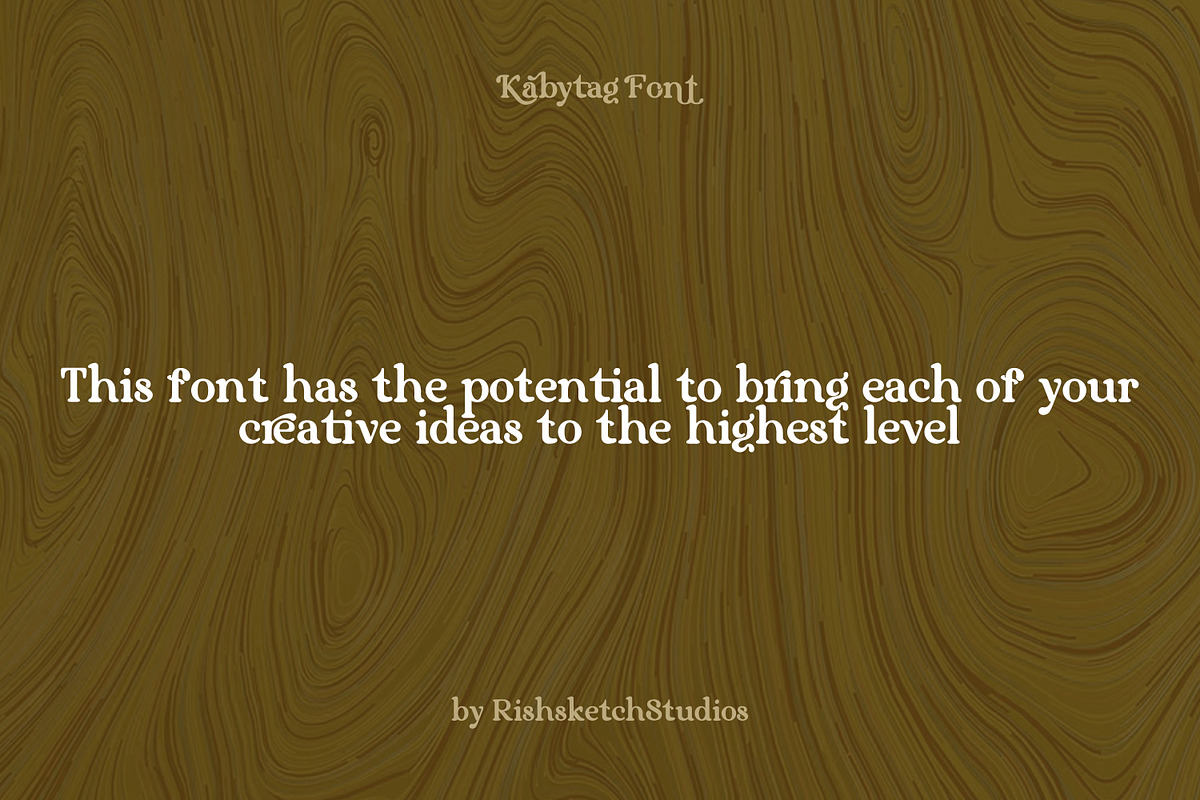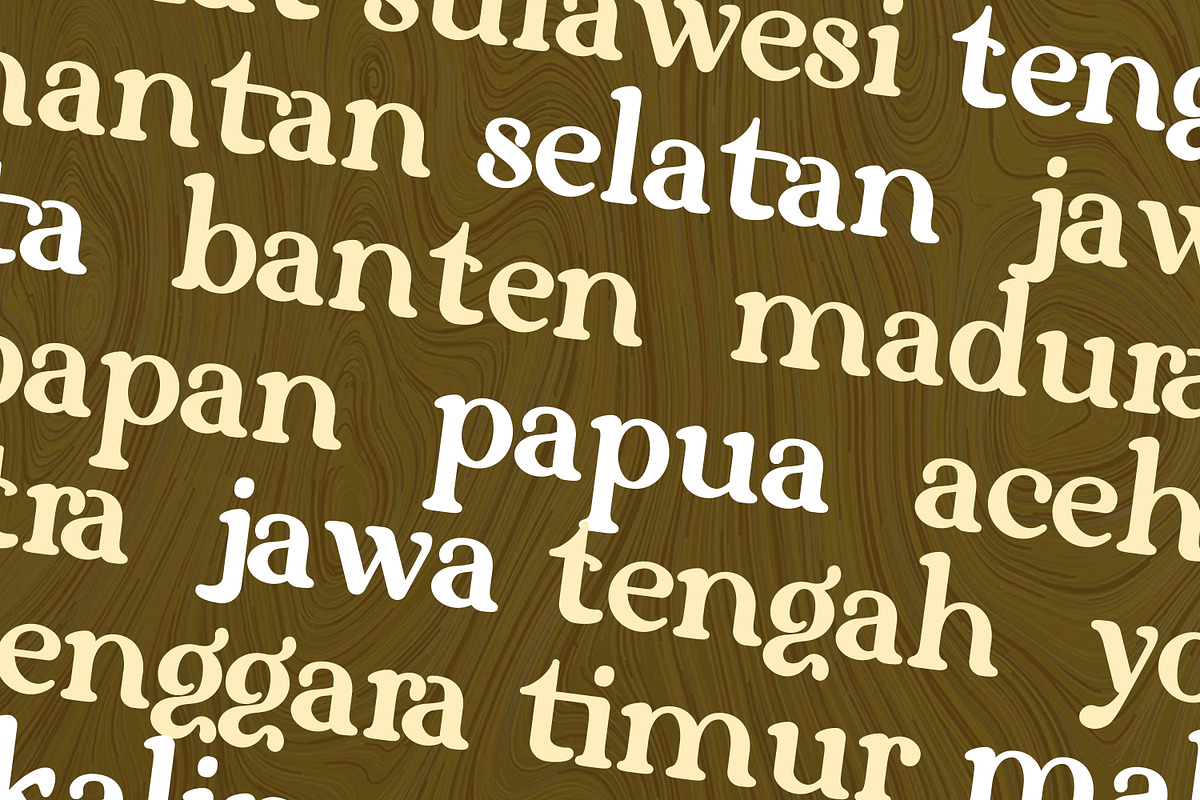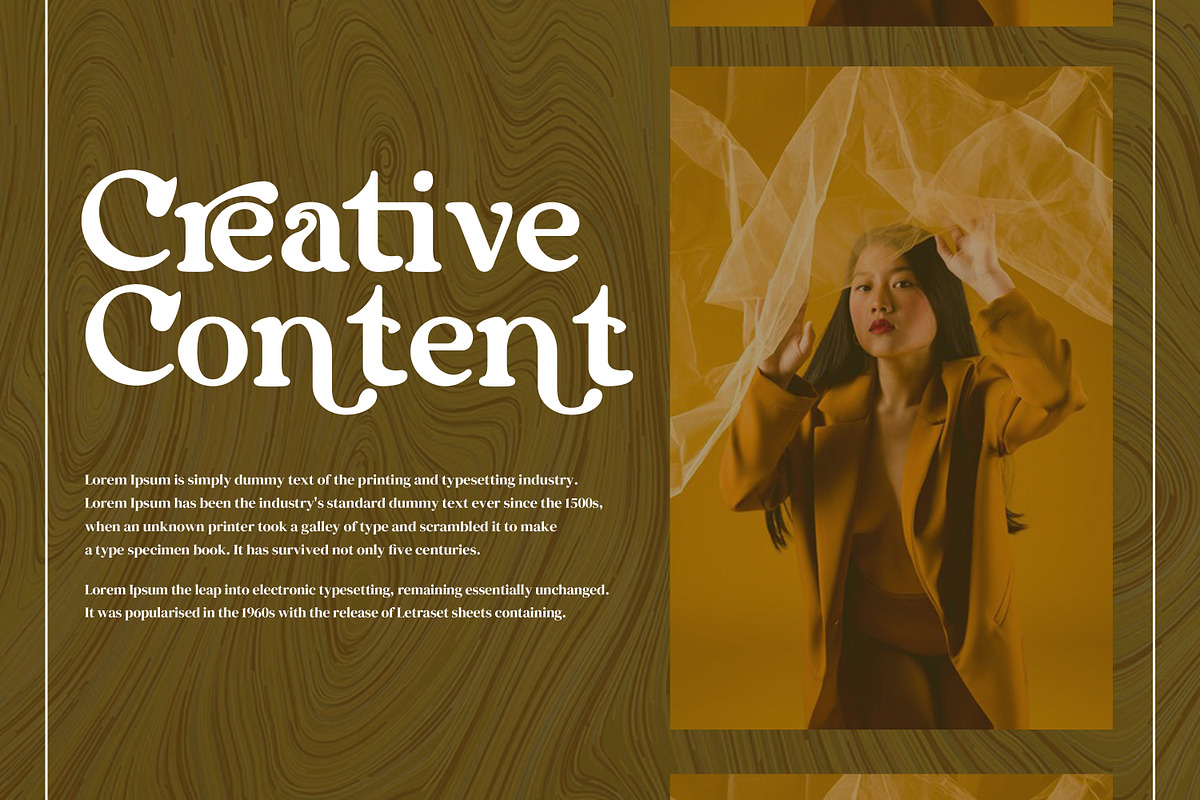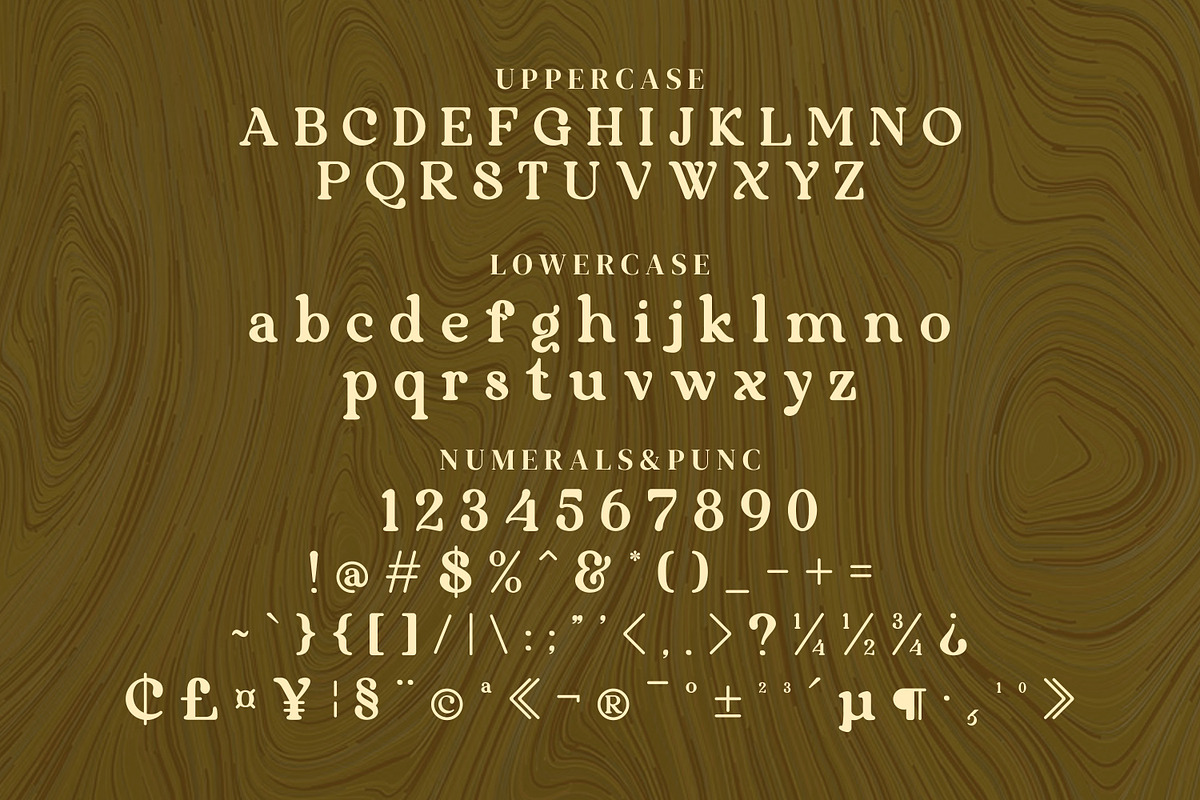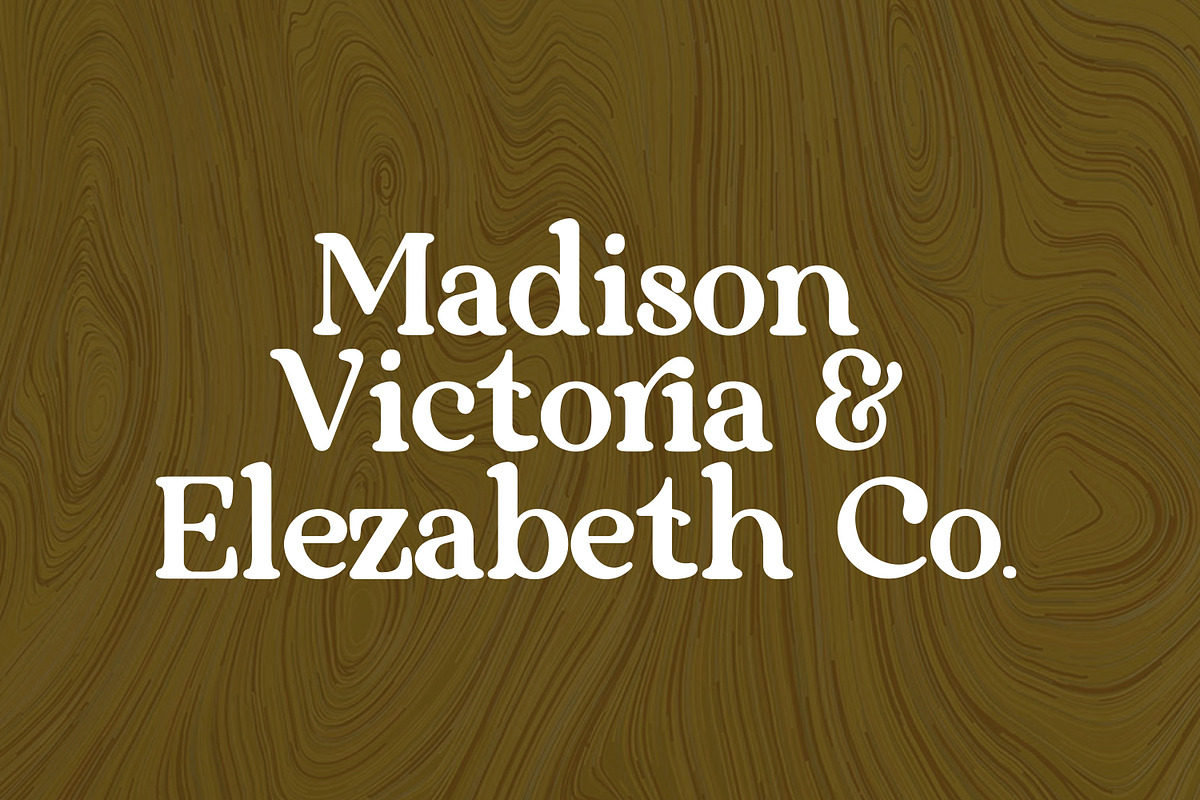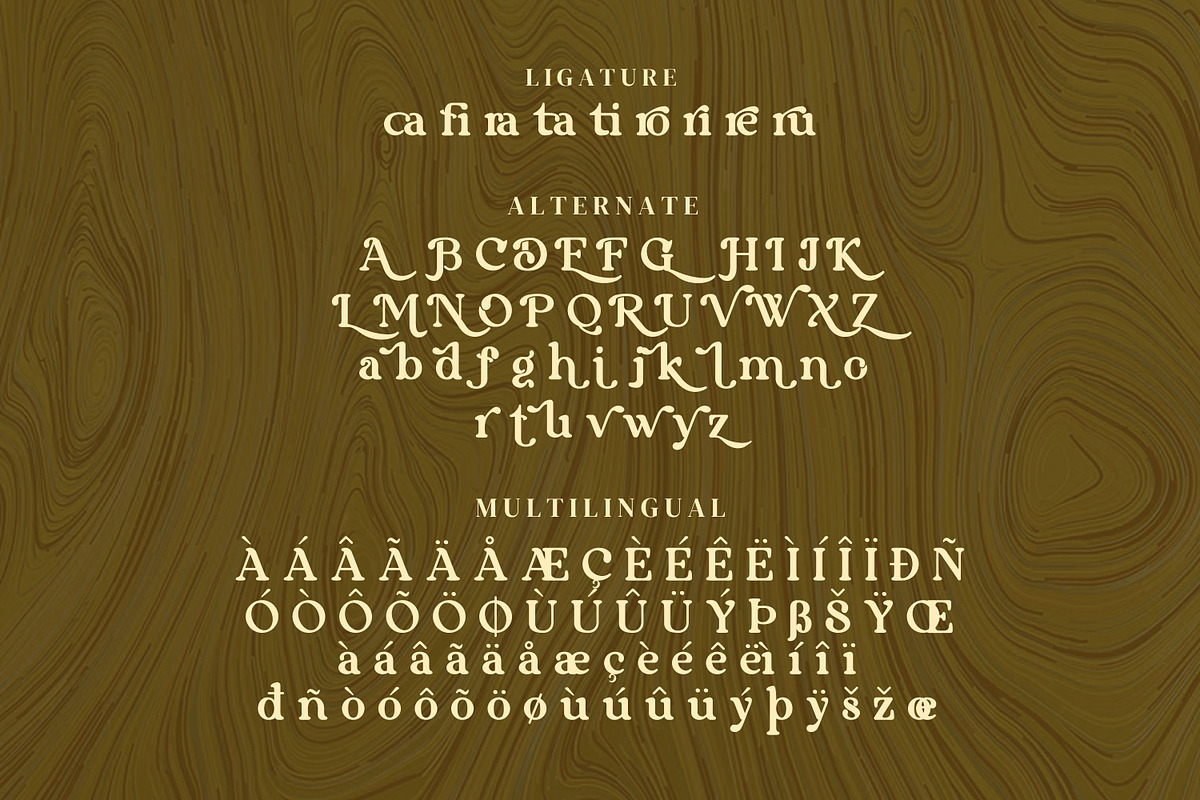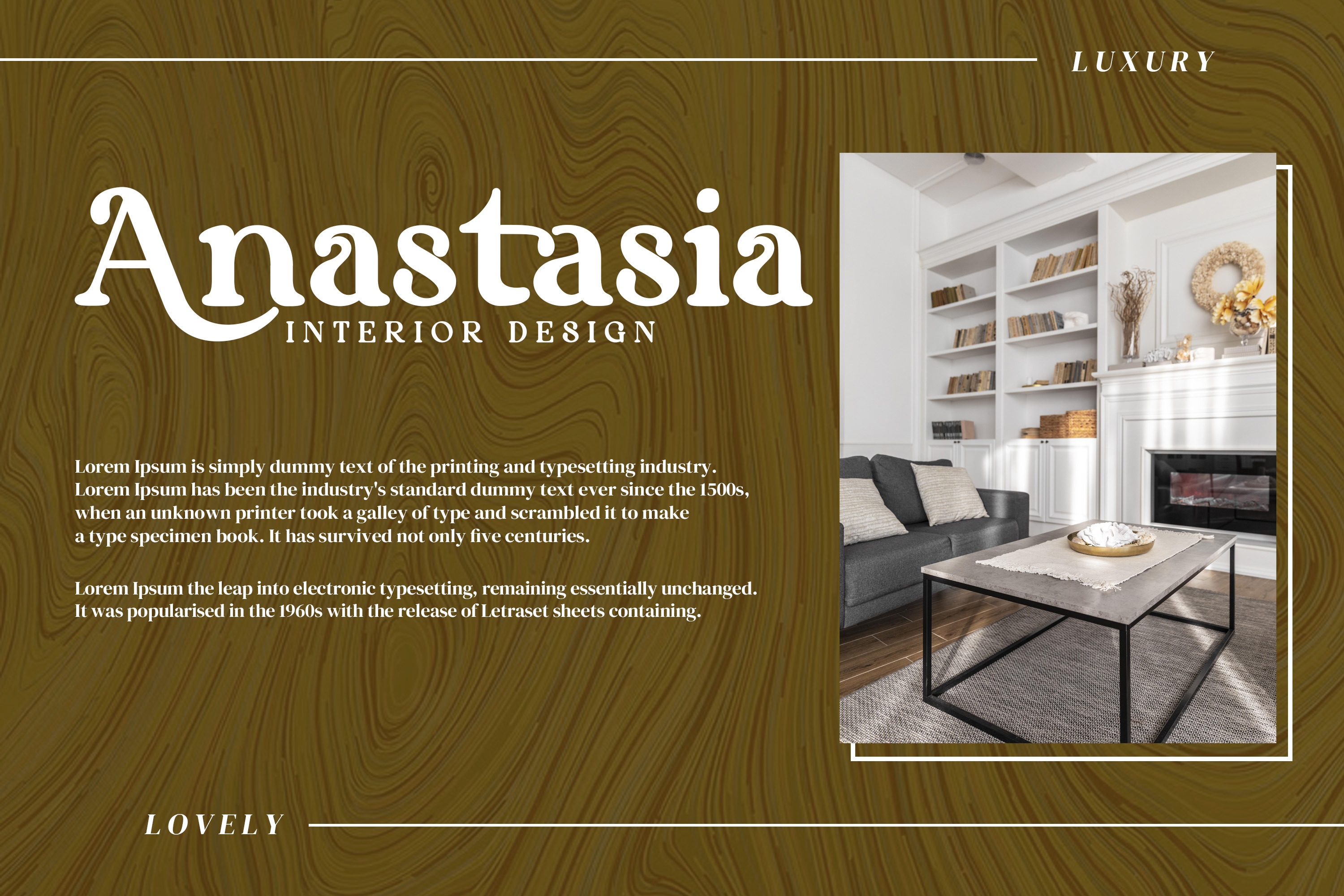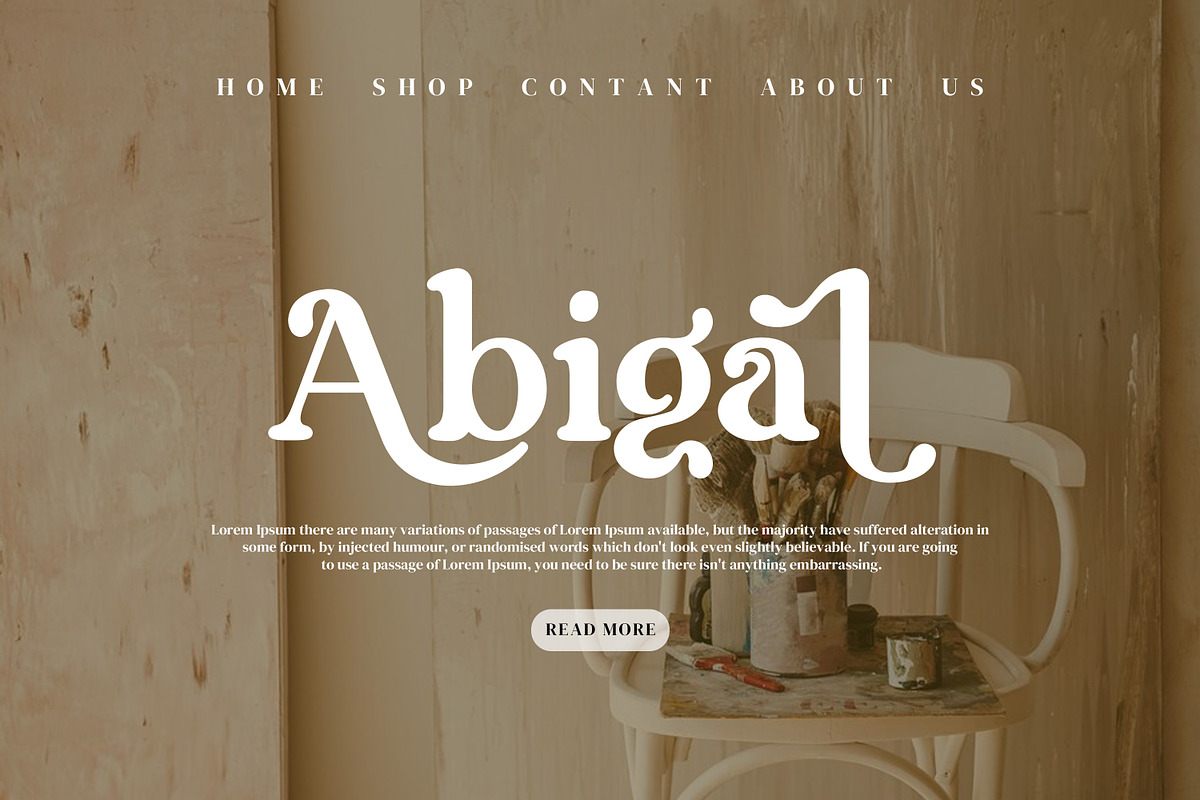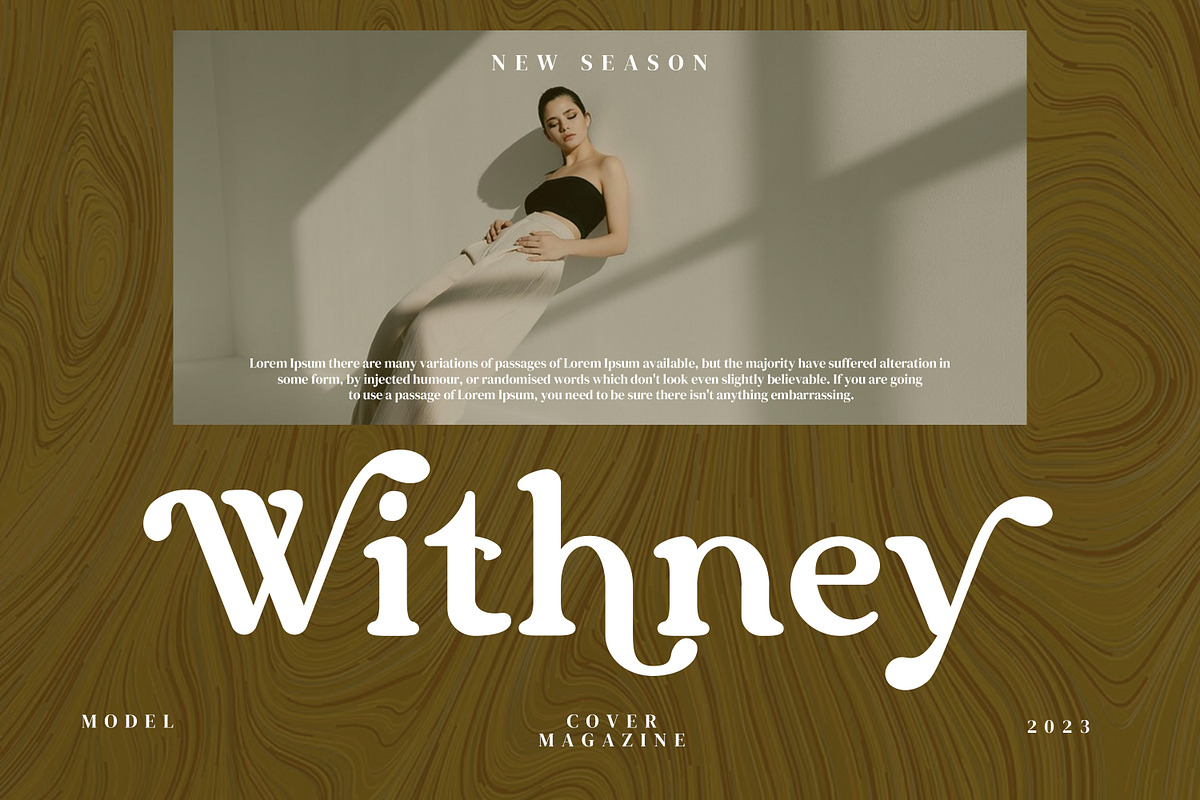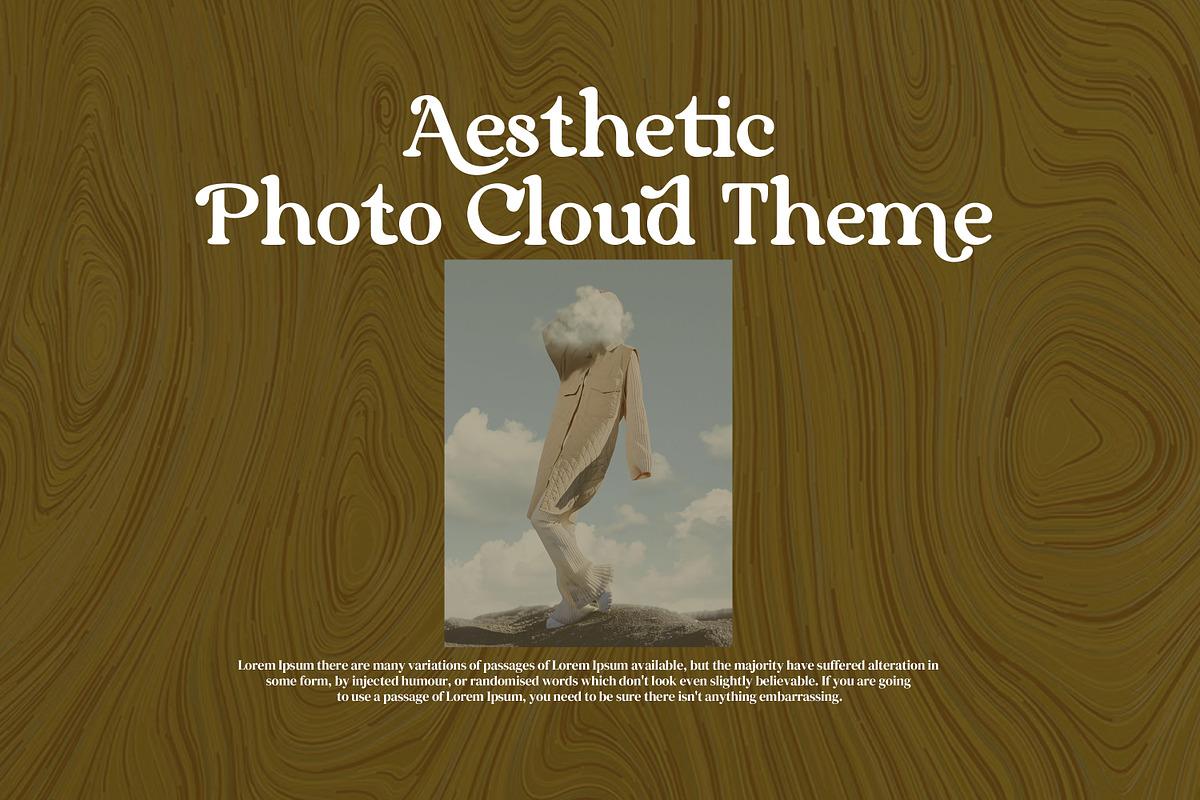
Kabytag Serif Fonts
Hi all! We introduce our modern font, designed with heart to produce a beautiful and modern font that anyone who uses it will fall in love with.
Kabytag Serif Fonts suitable for any project such as: logos, branding projects, home appliance design, product packaging, mugs, quotes, posters, shopping bags, t-shirts, book covers, business cards, invitation cards, greeting cards, labels, photography, signs water, special events and all your other luxury projects that need a premium feel. Product Font Content : TTF, OTF, WOFF, and FCP.
Features: Uppercase and Lowercase Punctuation (Open Type Standard) Accents (Multilingual Characters) Ligatures and Alternatives Works on PC and Mac Simple installation.